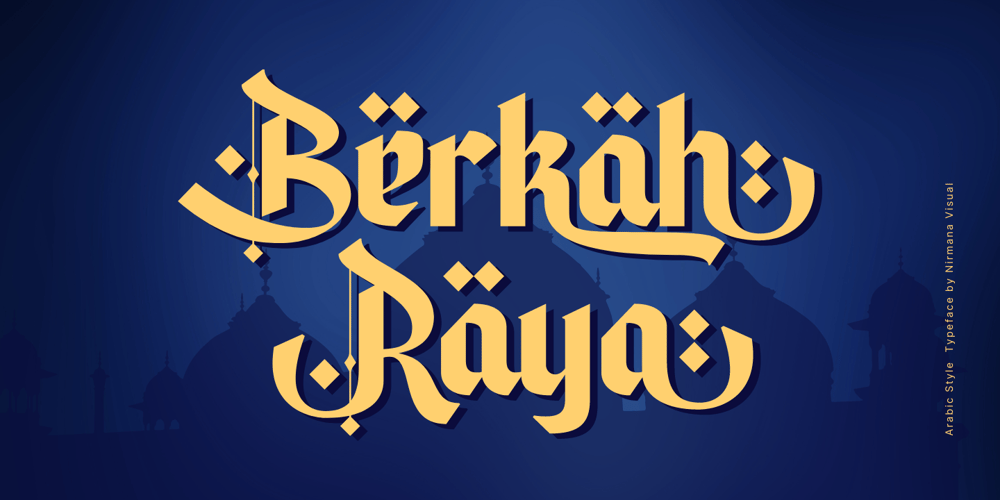
Berkah Raya Arabic Font Family was designed by Sigit Dwipa and published by Nirmana Visual. Berkah Raya Arabic contains 1 styles and family package options. Introducing Berkah Raya Arabic our stunning Arabic style font, crafted to add an extra level of sophistication and cultural depth to your designs.Our Arabic style font features a harmonious balance of curves and angles, creating a sense of flow and rhythm that perfectly captures the beauty of Arabic calligraphy.beautiful typographic harmony for a diversity of design projects, including logos & branding, social media posts, advertisements & product designs.